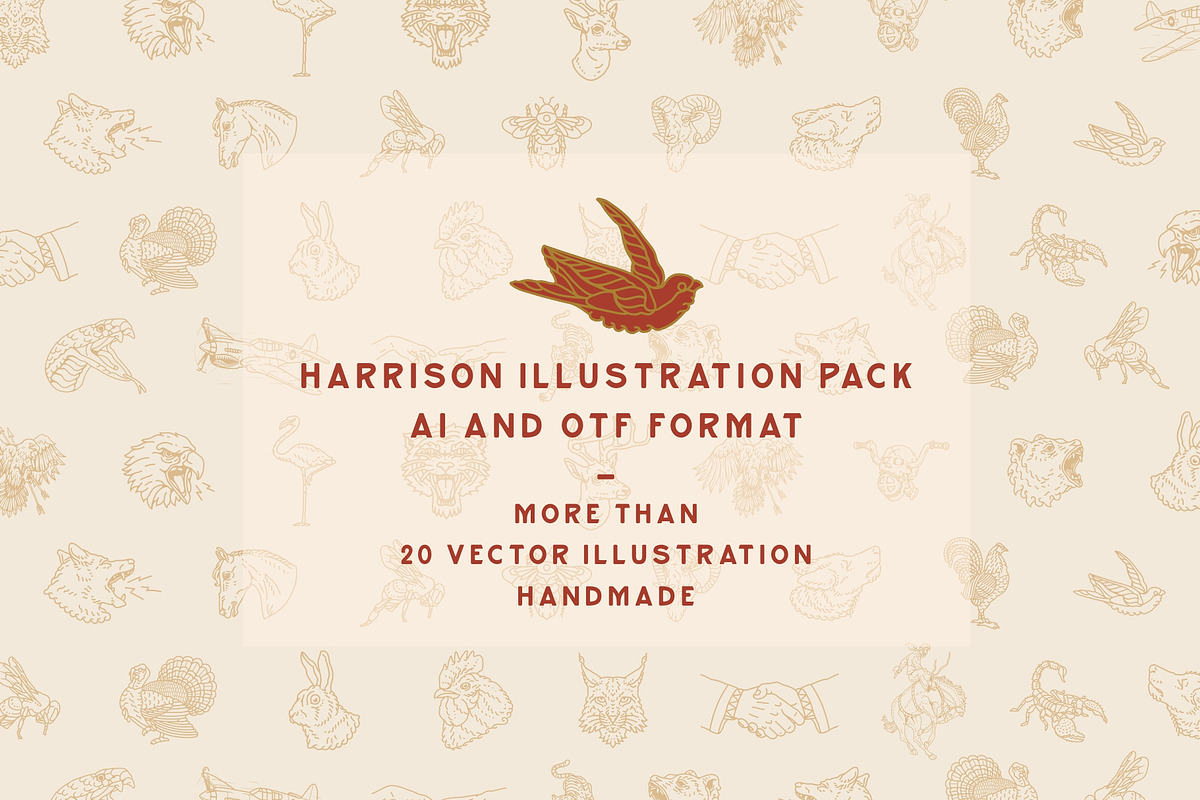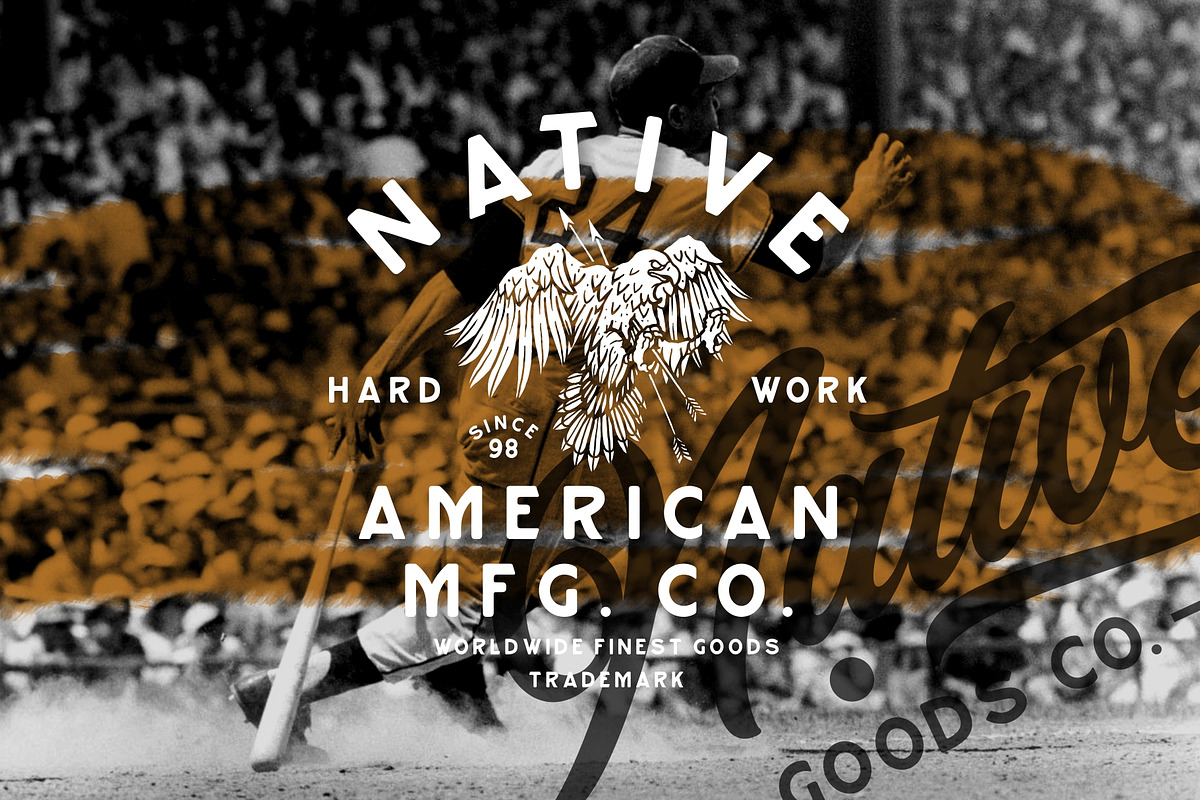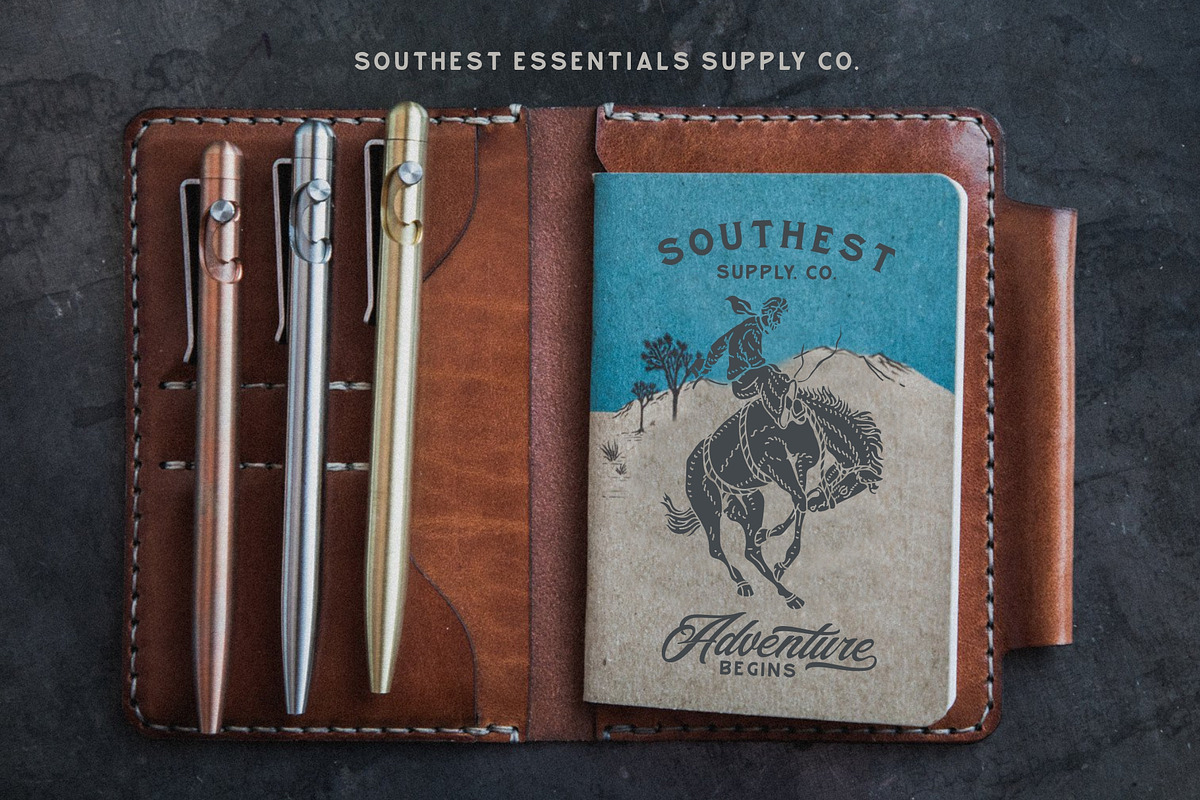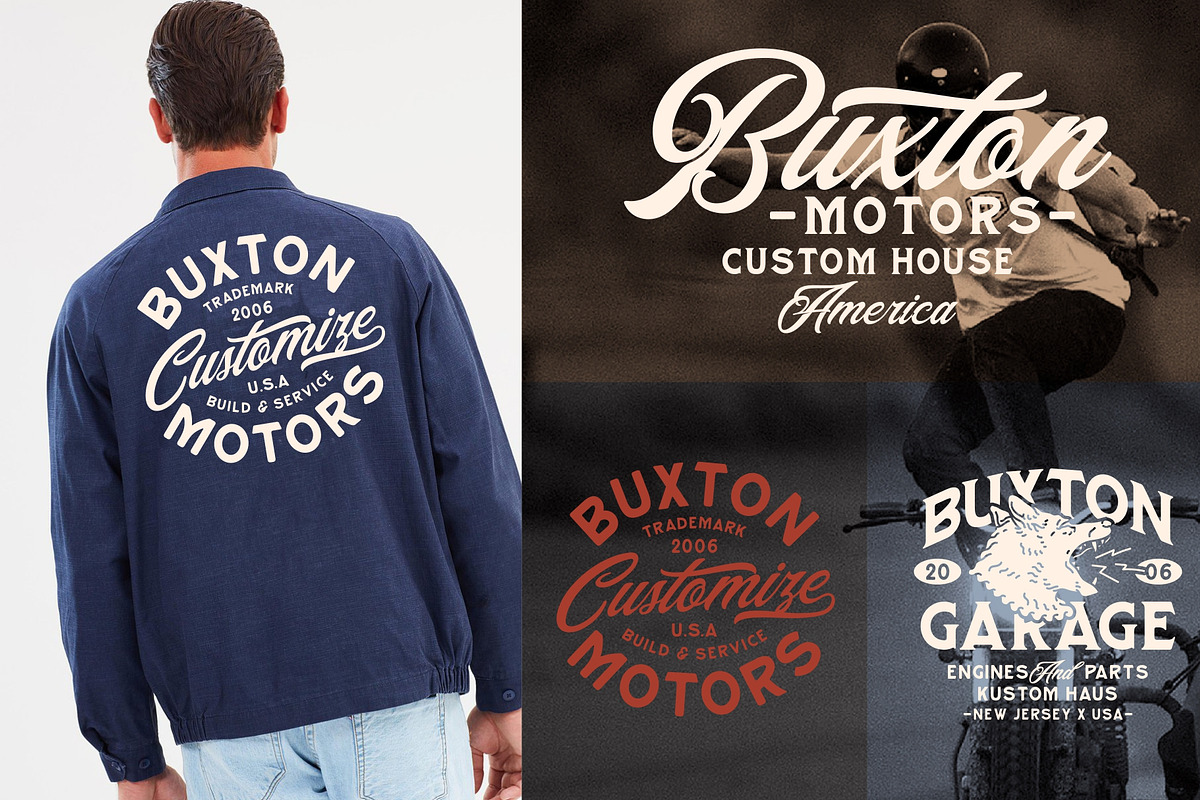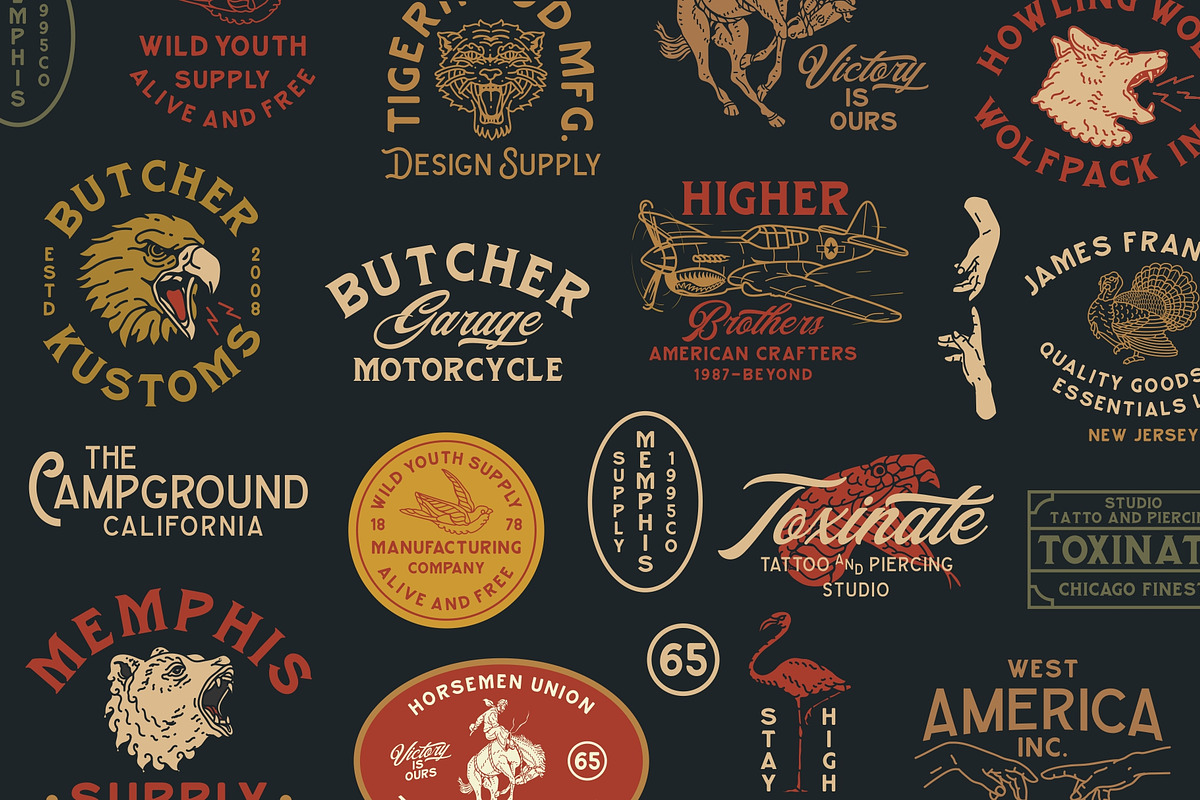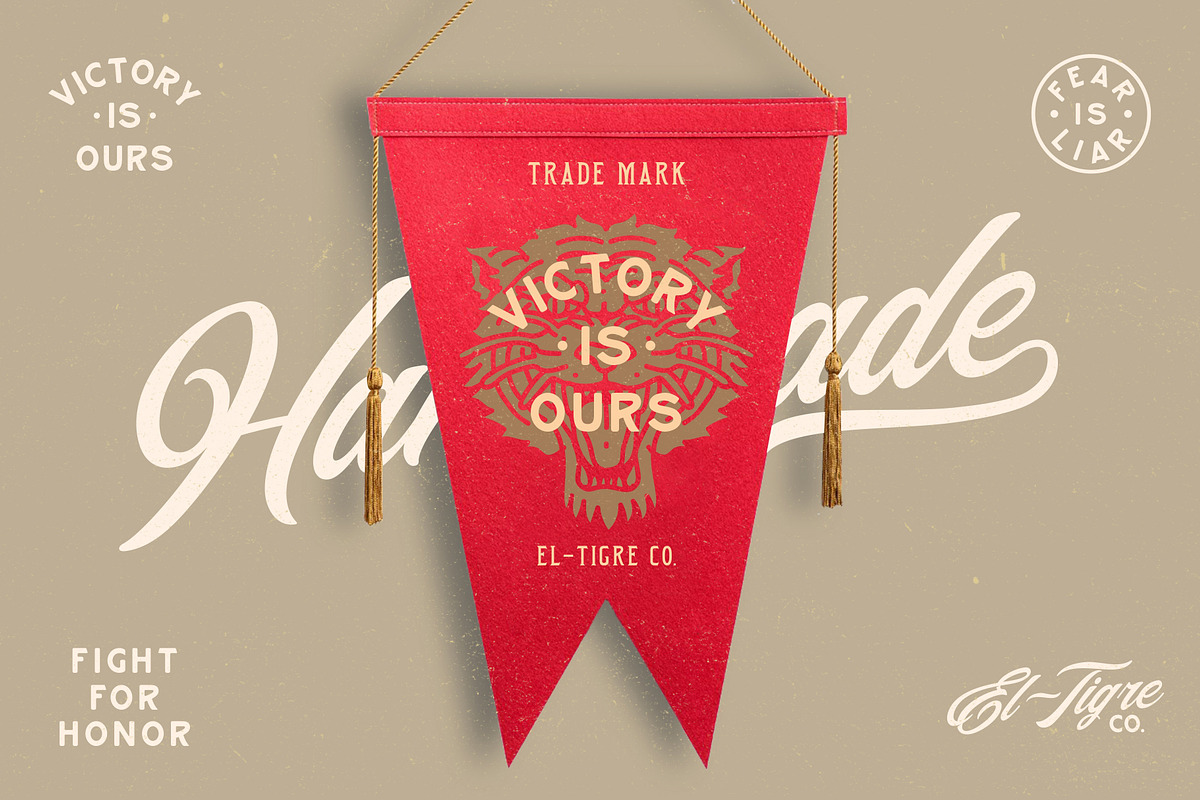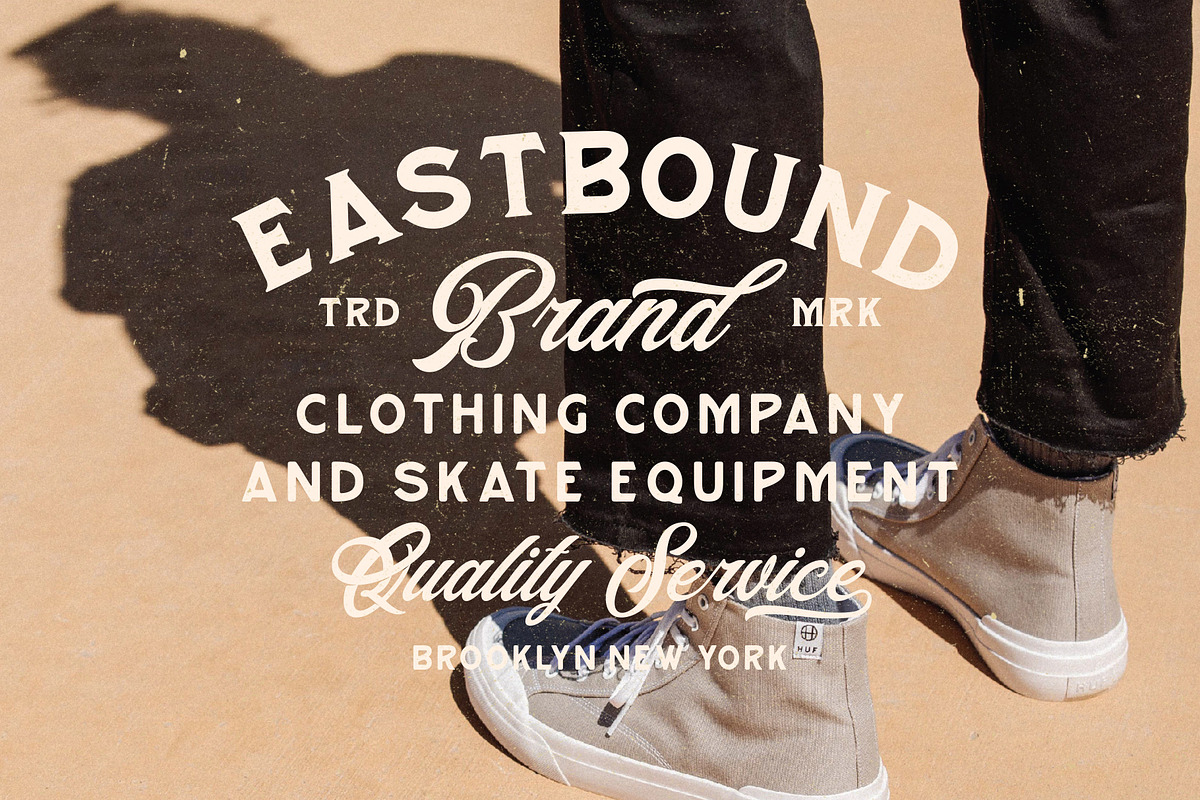
PRESENTING HARRISON FONT FAMILY
Harrison Font Family is handmade vintage script, serif and some serif fonts. Inspired by classic western culture, custom culture motorcycle and combining with vintage touch. There's so many fonts that would be perfect to combine in your design, especially on vintage design. With bonus illustration in this package, this fonts are great for logotype, badges, clothing, poster, and much more. This fonts comes with opentype features and adobe illustrator format for illustration pack also many alternative style to improve your design.
Uppercase and lowercase character (only uppercase for sans-serif and serif)
- With bonus illustration in this package, this fonts are great for logotype, badges, clothing, poster, and much more.